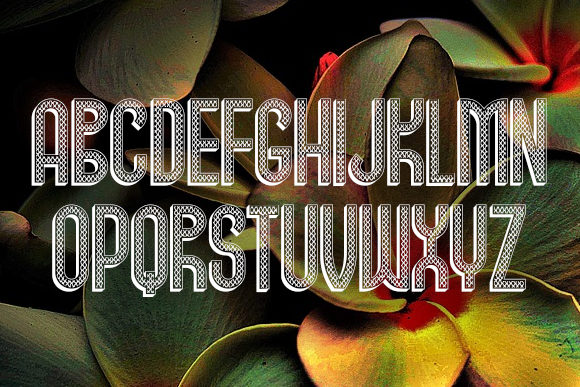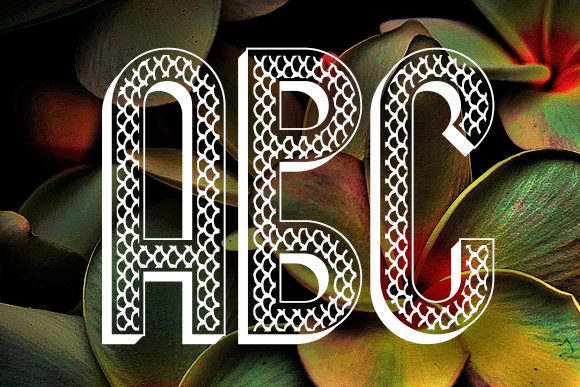
Introduction to Elixir Font
Imagine you’re in the middle of a creative project, brainstorming ideas for a poster or flyer. You’ve got a vision in your mind, but the right font is missing to bring it all together. That’s where the Elixir Font comes in – a game-changing decorative font that adds a touch of magic to any design.
From its stylish and elegant design to its versatility in any print or digital format, the Elixir Font is a valuable asset for any designer looking to take their work to new heights. Get ready to unlock its full potential and discover a whole new world of creative possibilities.
Key Features of Elixir Font
- High-quality, professional design perfect for creative projects, offering a unique touch to any visual content.
- Includes a range of weights and styles, providing flexibility and versatility for various design needs and creative projects.
- Can be used in various design contexts, including logos, typography, and graphics, making it a valuable addition to any design resource library.
Honest Review: Elixir Font
As a designer, I’m always on the lookout for high-quality design resources to elevate my creative projects. Recently, I came across the Elixir Font, and I must say, it’s been a game-changer for me.
- ✨ High-quality glyphs that are perfect for headings and titles
- ✨ Elegant and modern design that’s ideal for creative projects
- ⚠️ The font doesn’t support a transparent background, which can be a problem for designers who need to work with complex compositions
- ⚠️ Limited font sizes, which can make it difficult to use in certain contexts
Overall, I’m really impressed with the Elixir Font. While it may have a few limitations, its high-quality design and free download make it a valuable resource for designers. I’ve been using it in all my recent projects, and I’m confident that it will continue to be a staple in my design toolkit.
Elixir Font is perfect for creative projects that require a unique and stylish touch. Some common use cases include:
- Graphic design and typography
- Print and digital marketing materials
The Elixir Font is a TrueType font, designed with a high level of detail and precision. It includes 500+ glyphs, covering a wide range of languages and characters. The font is optimized for on-screen display and print materials, ensuring a crisp and clear appearance on various devices and paper types.